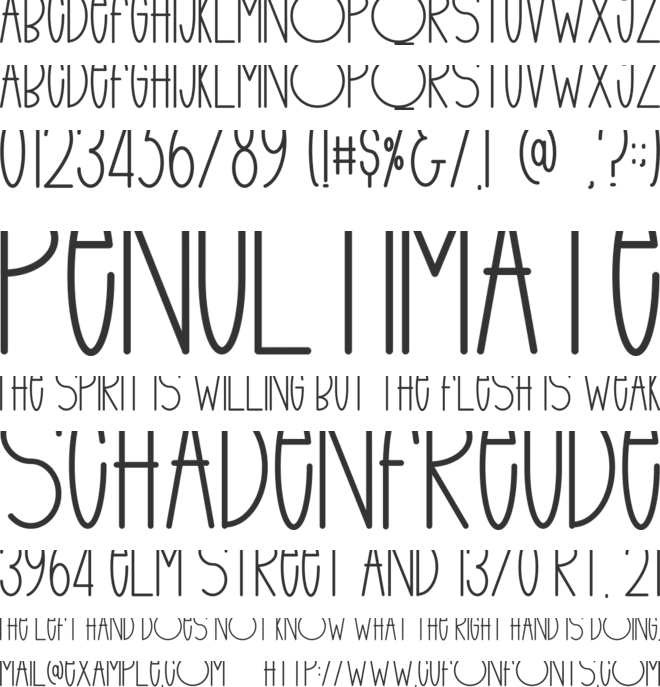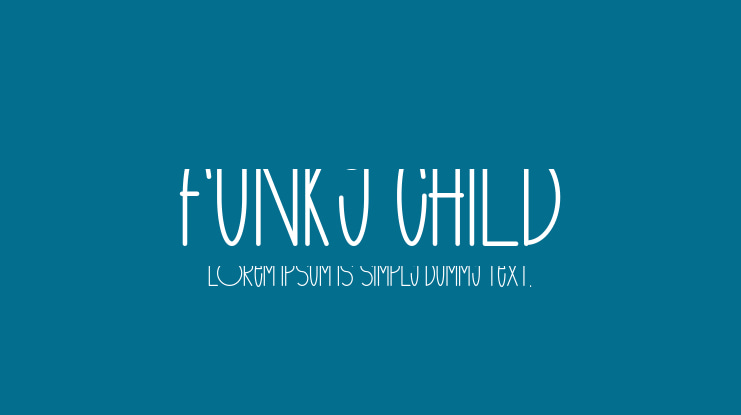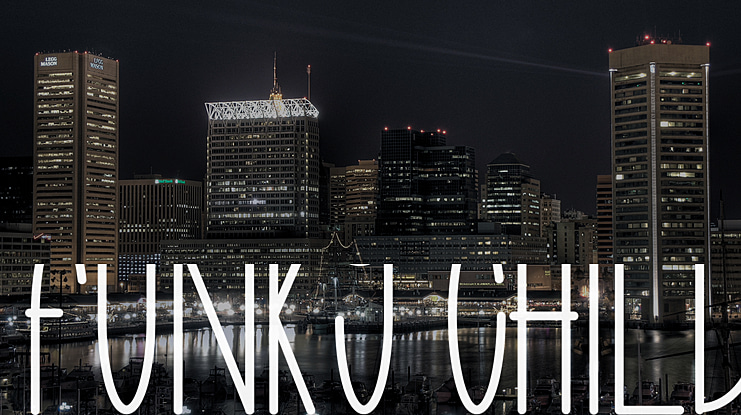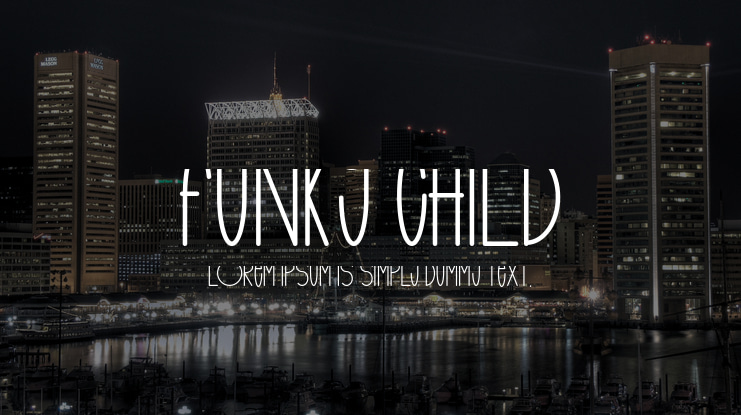
funky child Font
Funky Child is a cute, tall, and all-caps handwritten font with funky and youthful letters. It is perfect for greeting cards, invitations, posters, T-shirt designs, SVG designs, and more. You can use it for personal or commercial projects, in logos, and on items for purchase with unlimited sales. Whatever the topic, this font will be a wonderful asset to your fonts library as it has the potential to enhance any creation.
funky child font preview